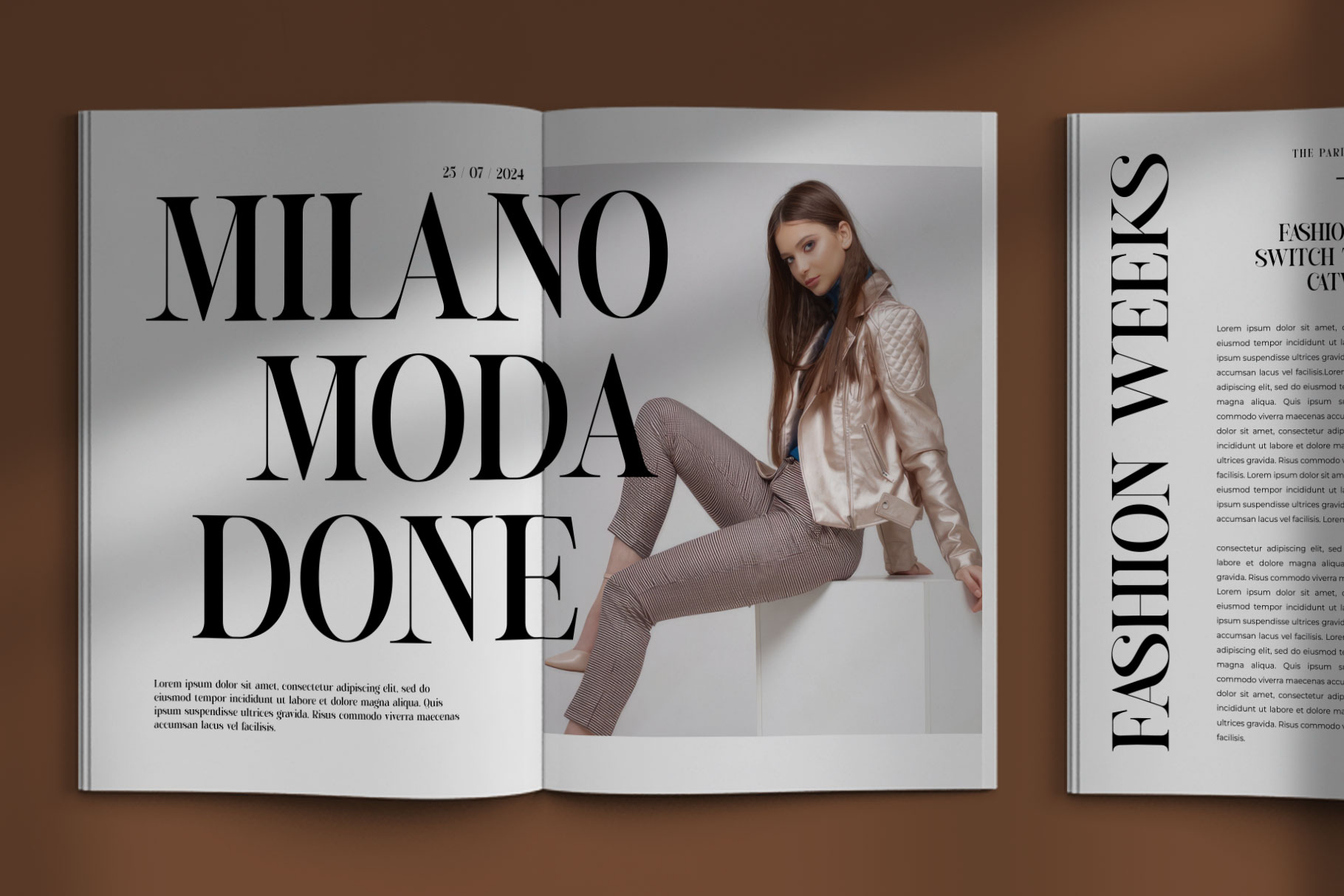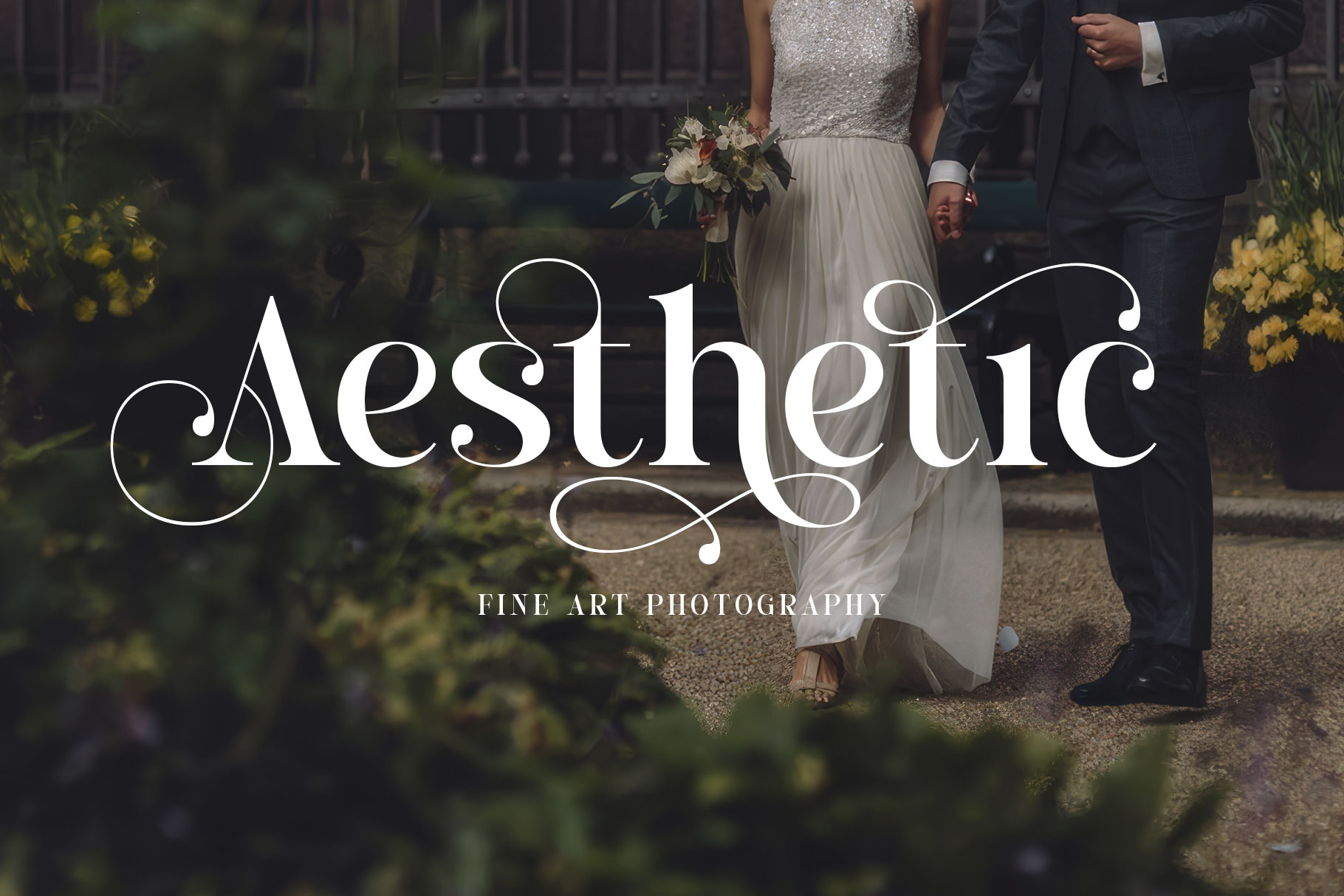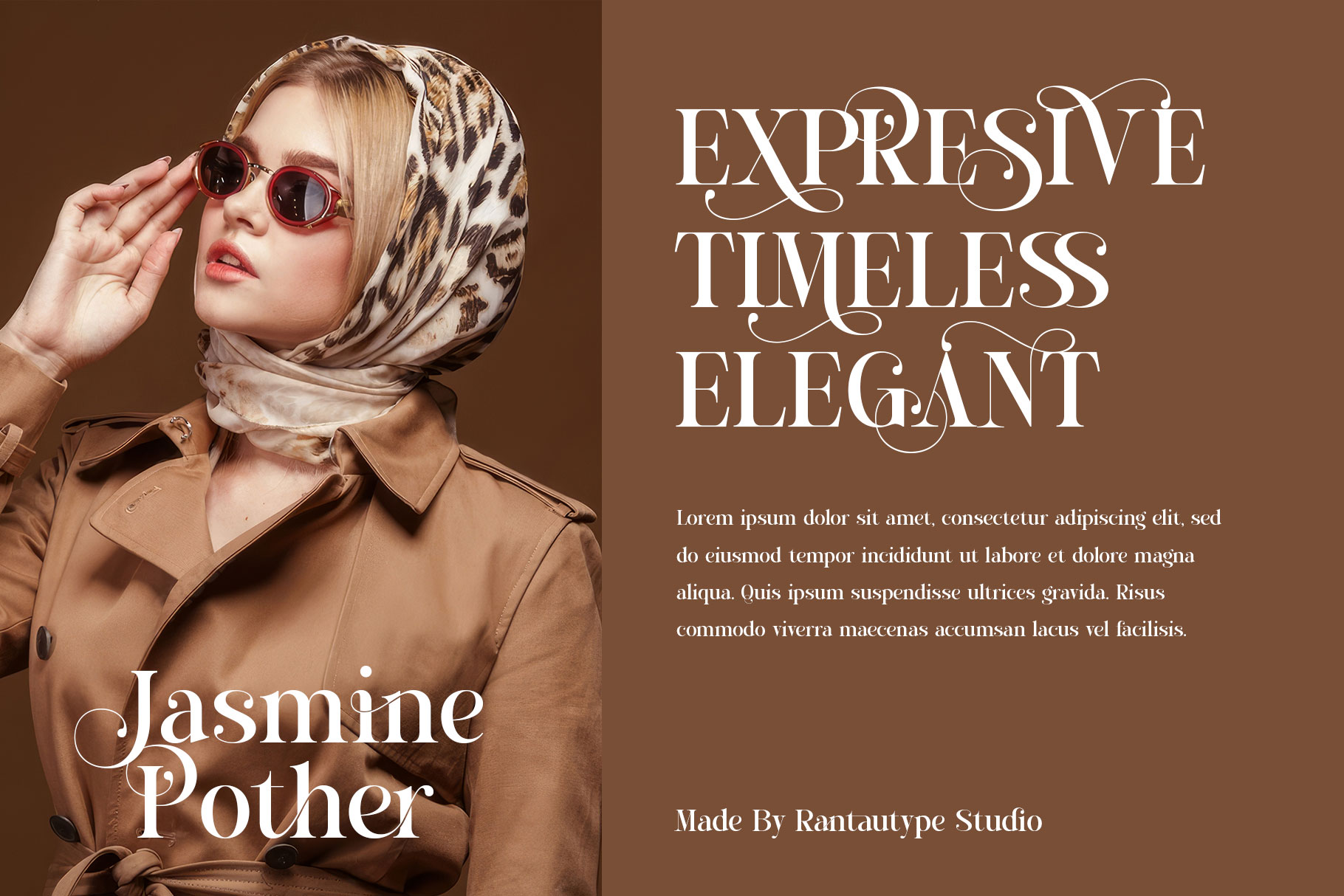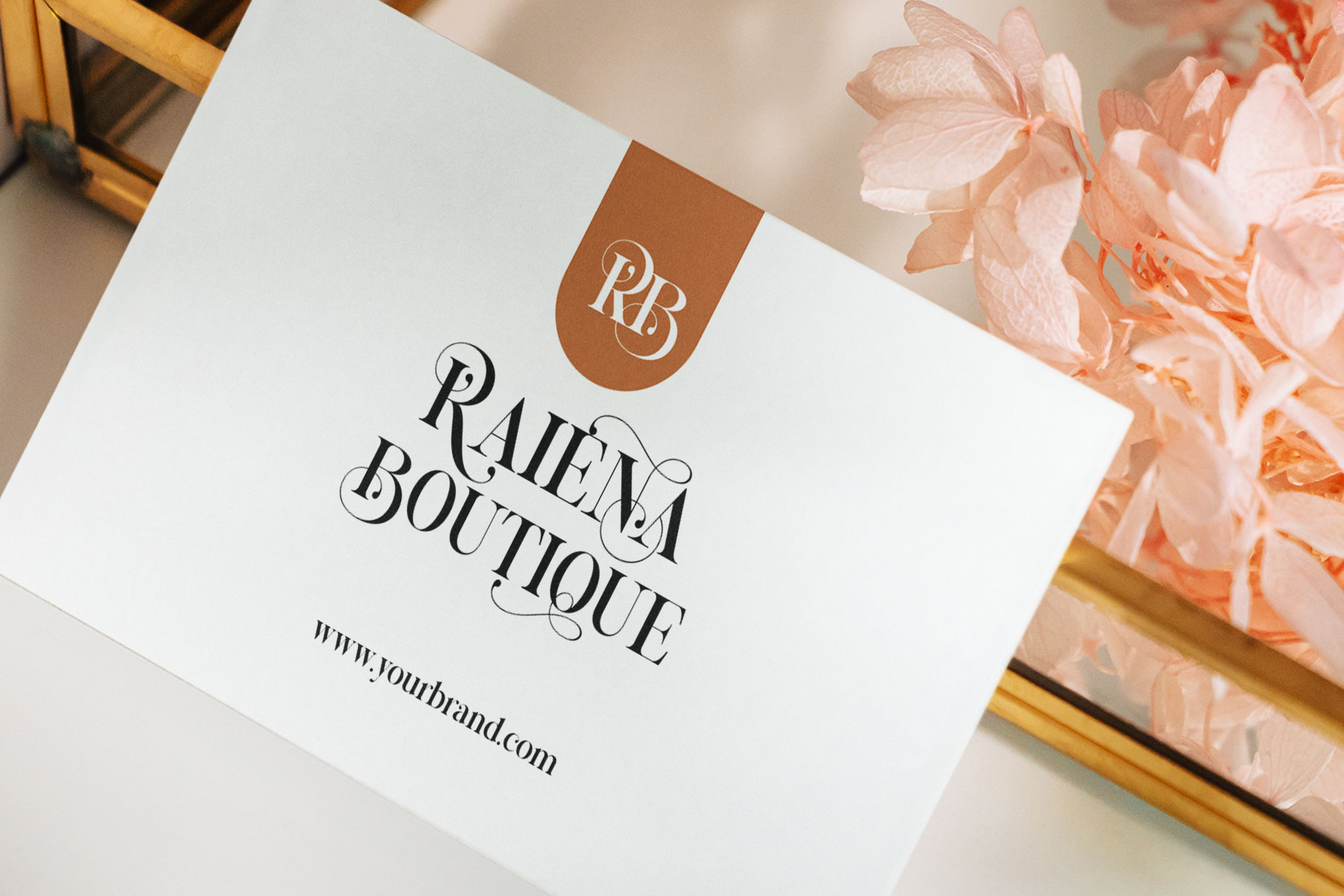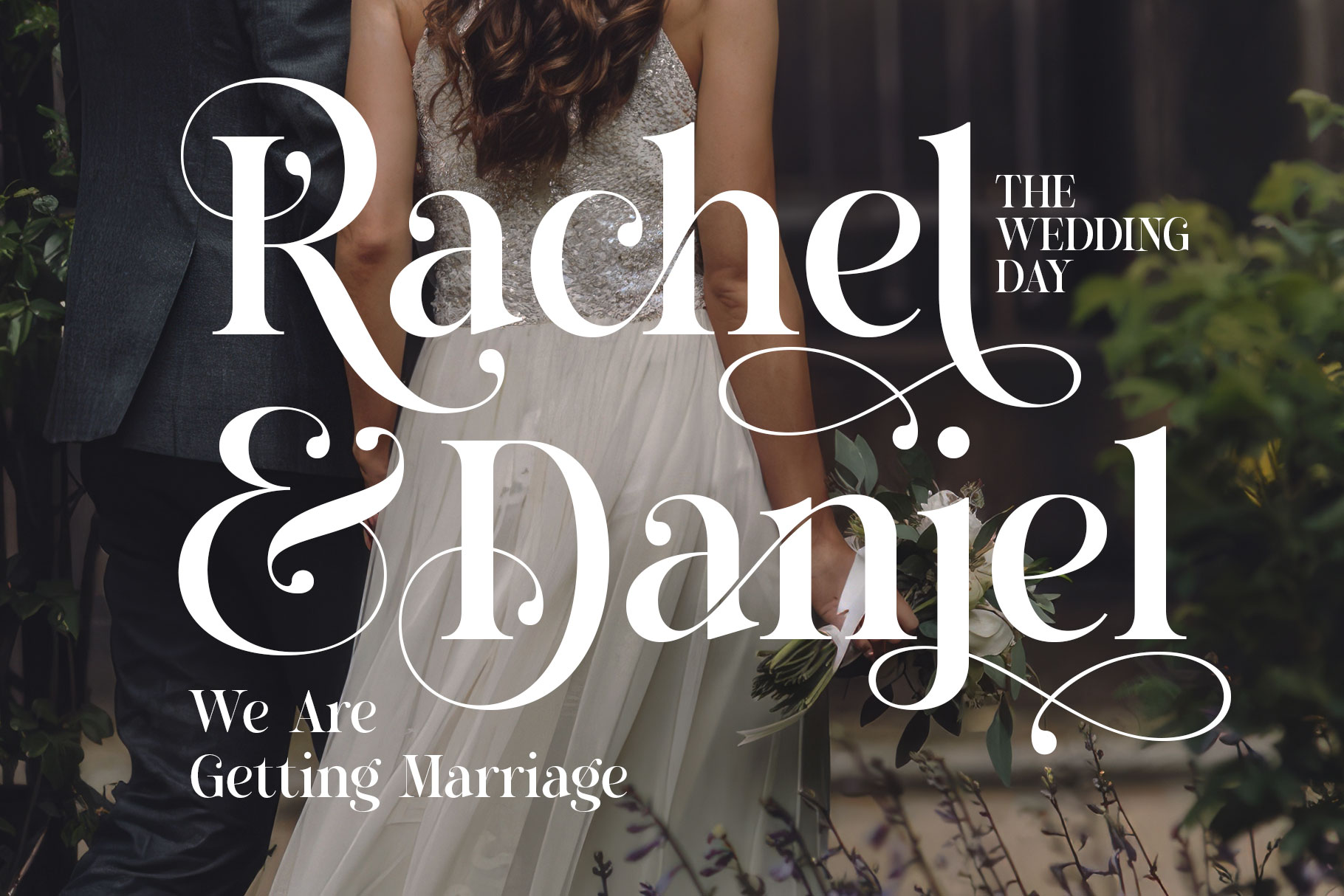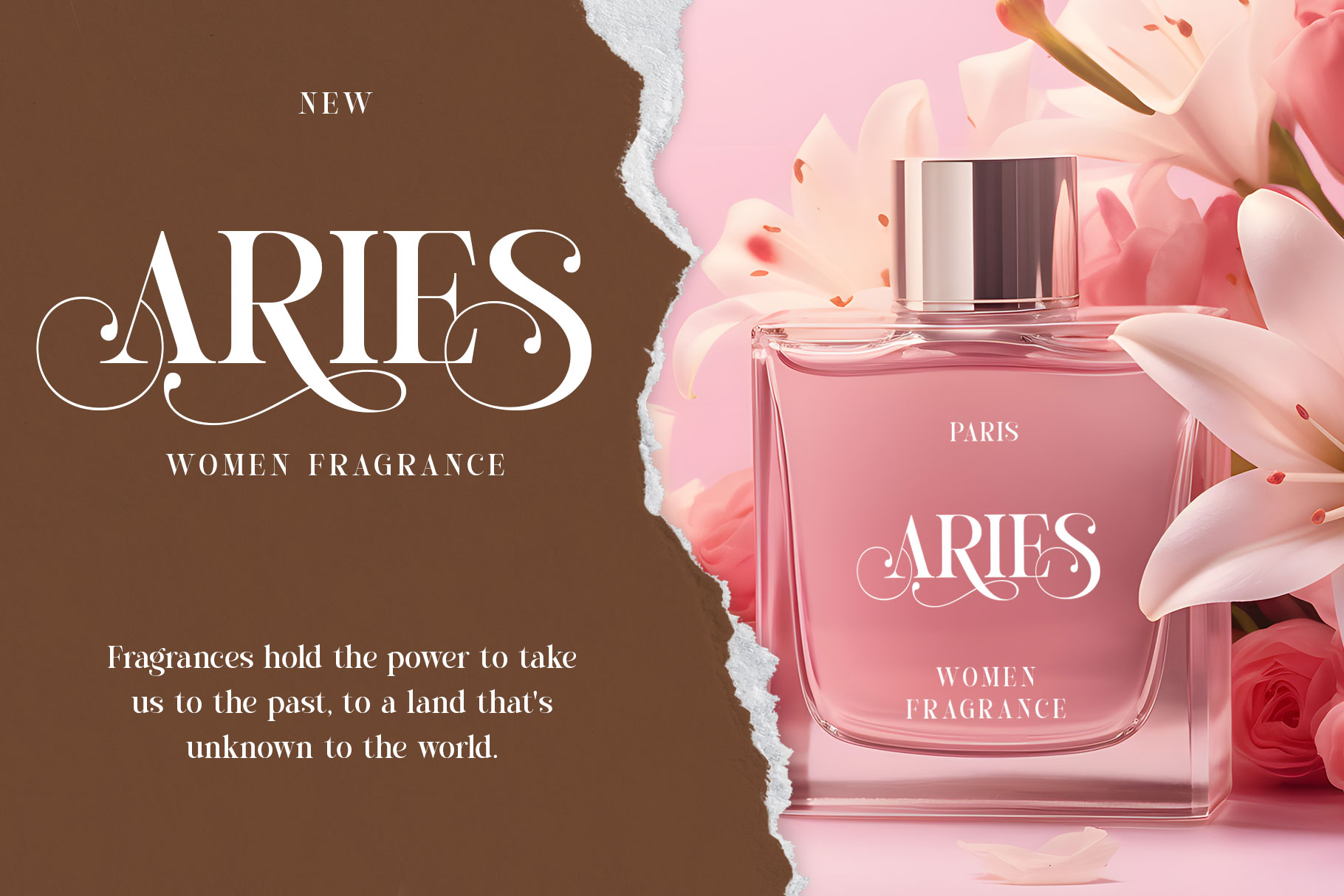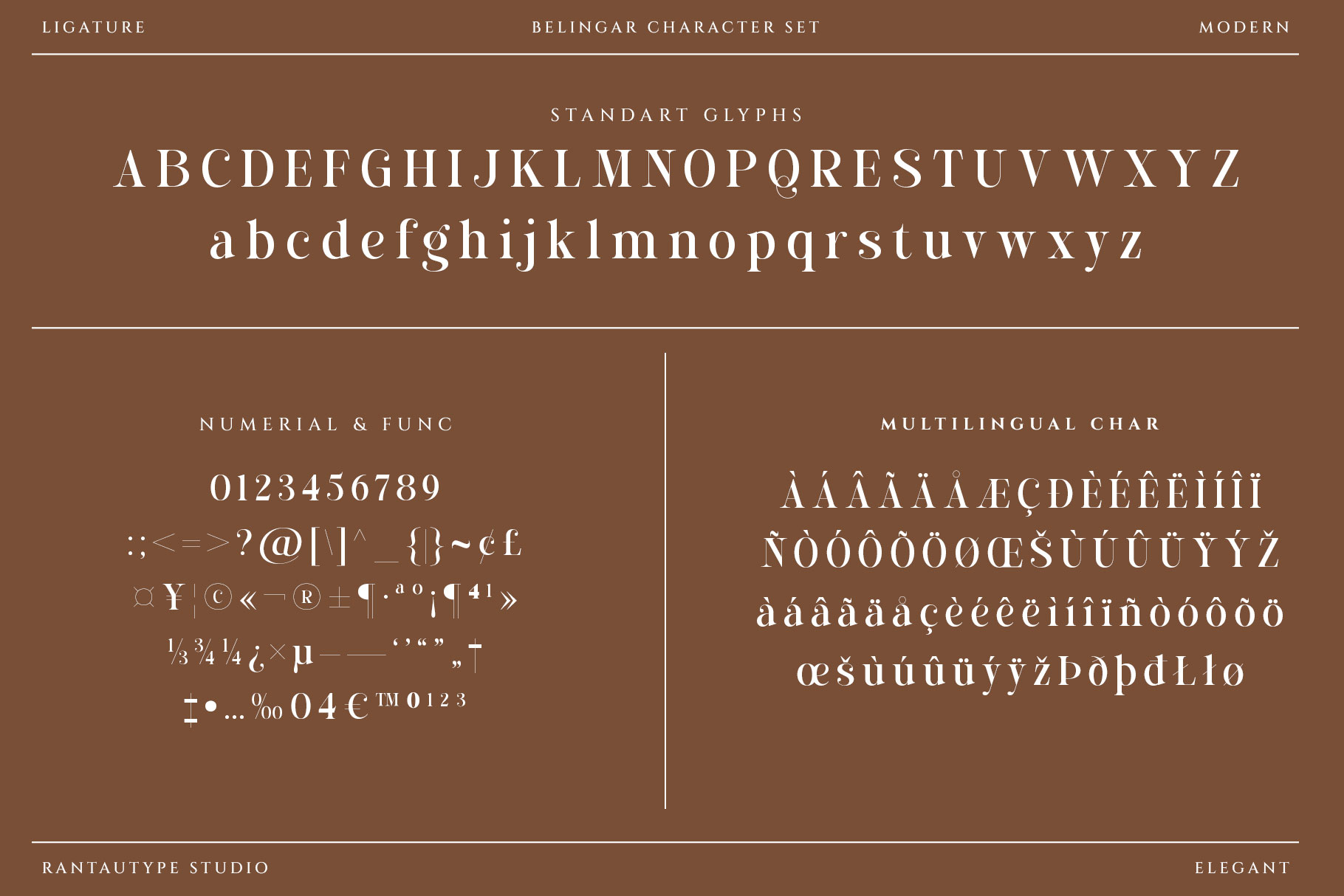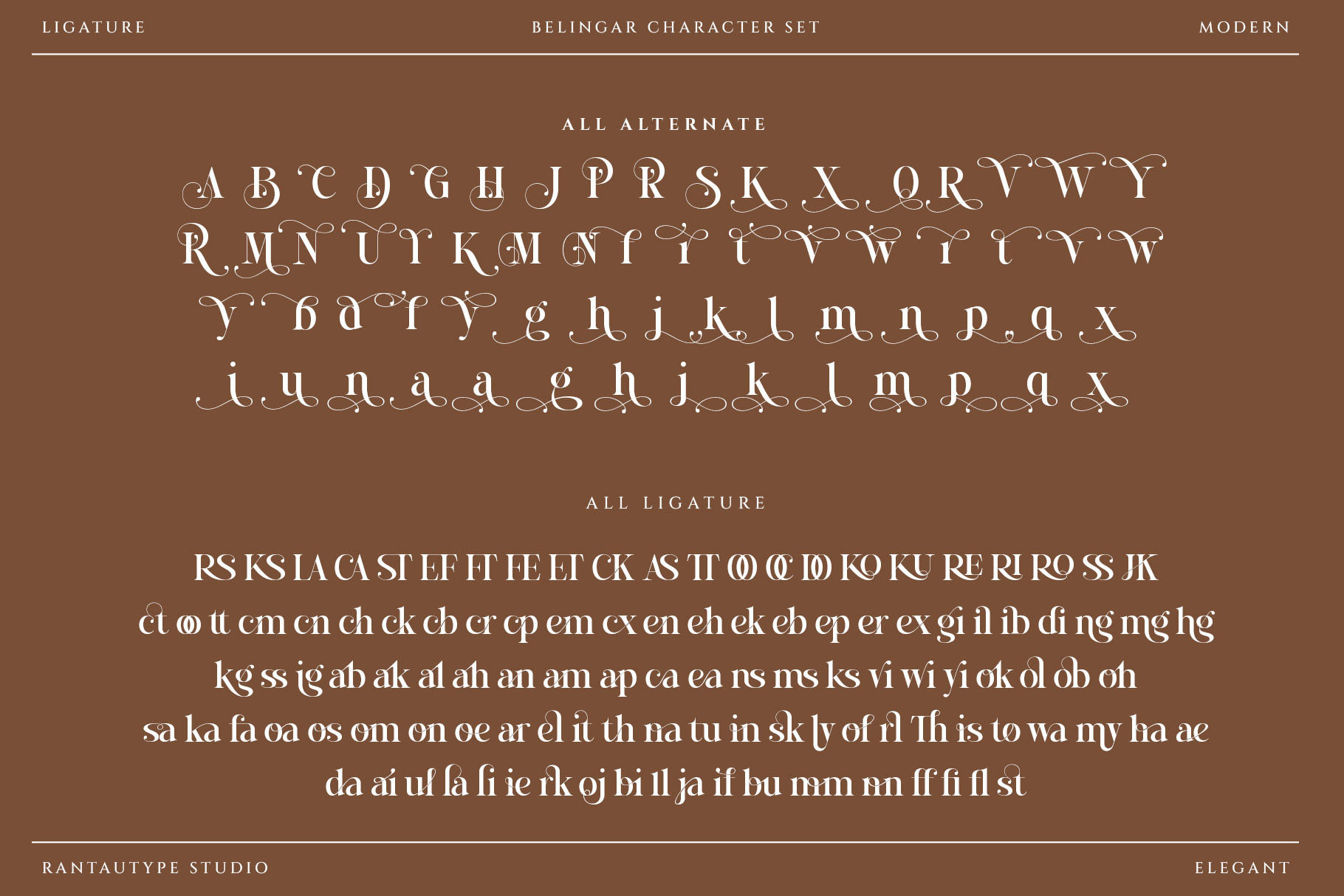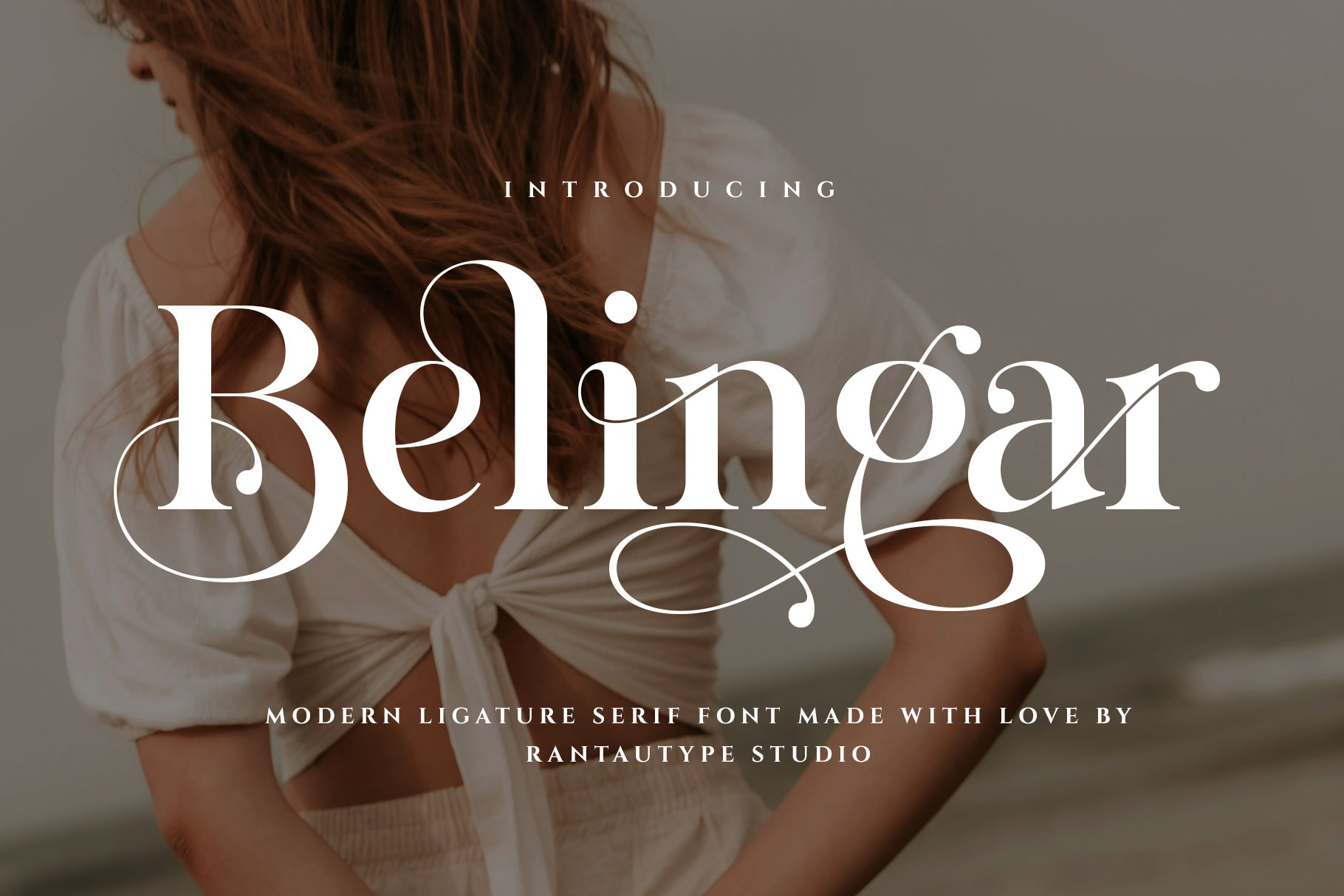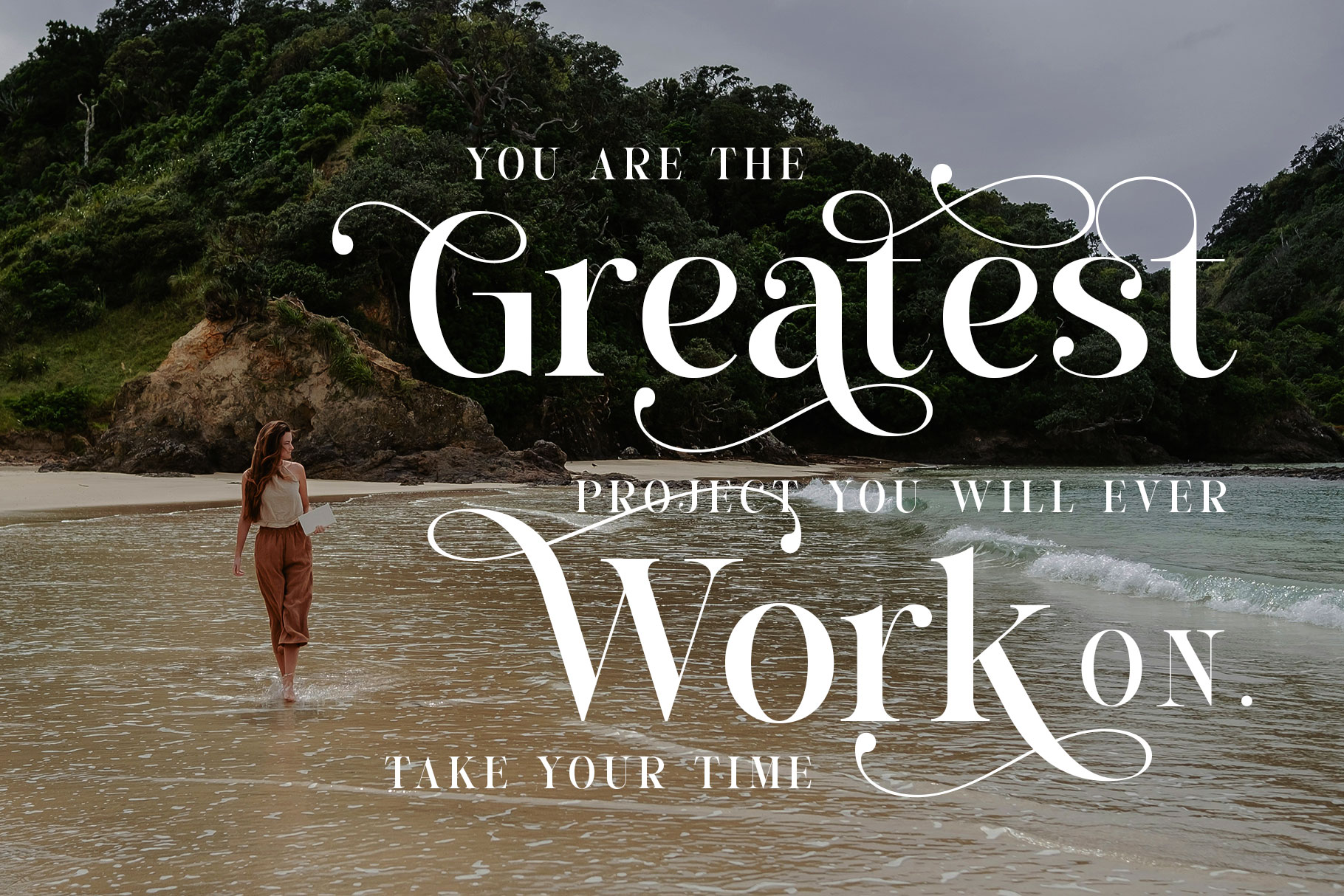
Belingar Modern Ligature Font
Belingar is a modern & elegant ligature serif with beautiful feature. Belingar come with 120+ ligature and beautiful alternate, you can mix and match to make a beautiful design project. We make this font look fashionable, elegant, chic, luxury, modern and vertisile.
Belingar is a beautiful choice for any creative endeavor, creating elegant, modern, chic, lifestyle design such as logotype, title, cover, branding, invitations, wedding designs, display and magazine, social media posts, advertisements, printed quotes, product packaging, corporate brand, product designs, labels, photography, watermarks, special events and any other project with elegant touch.